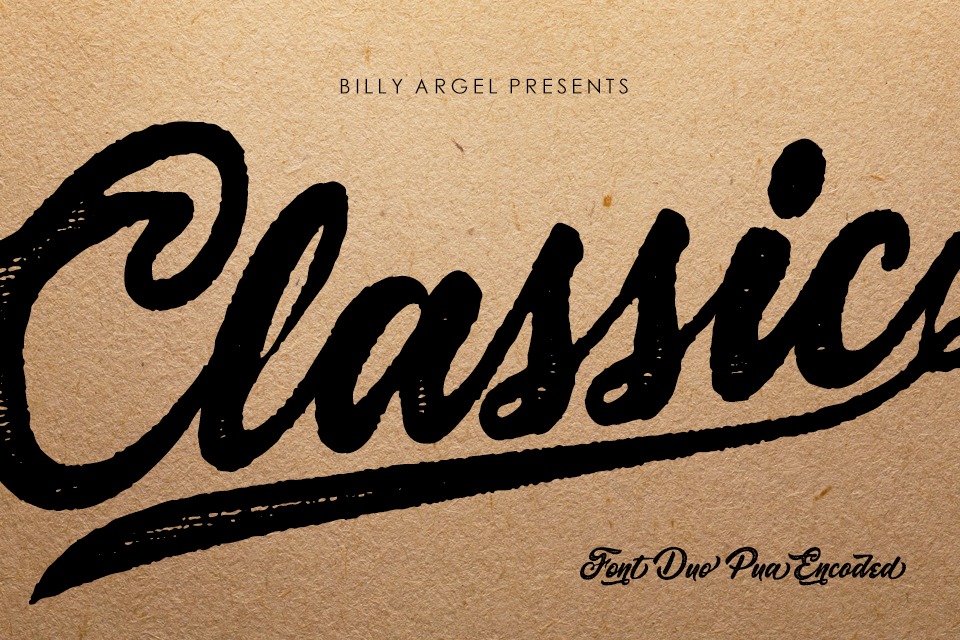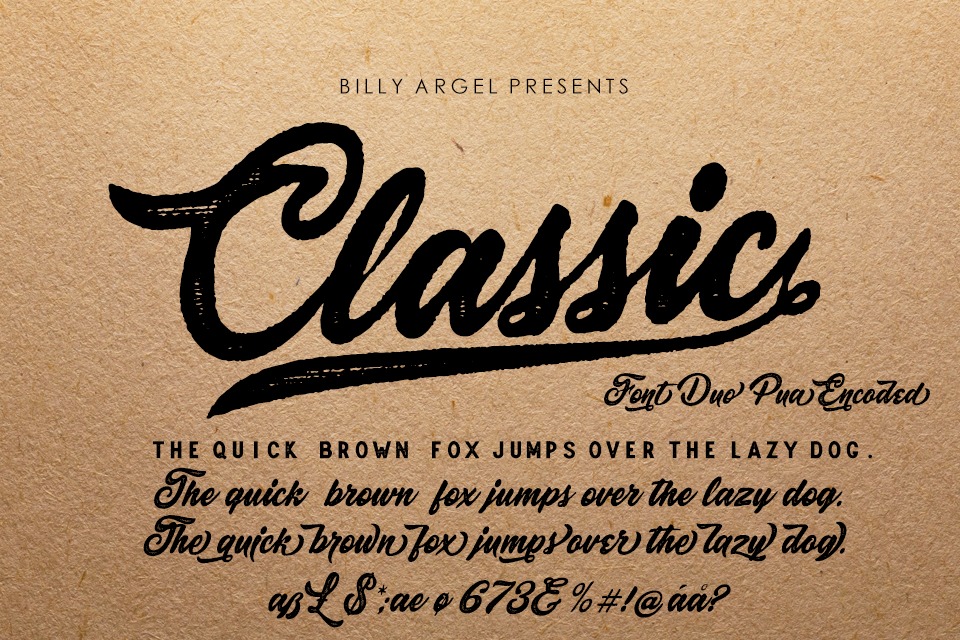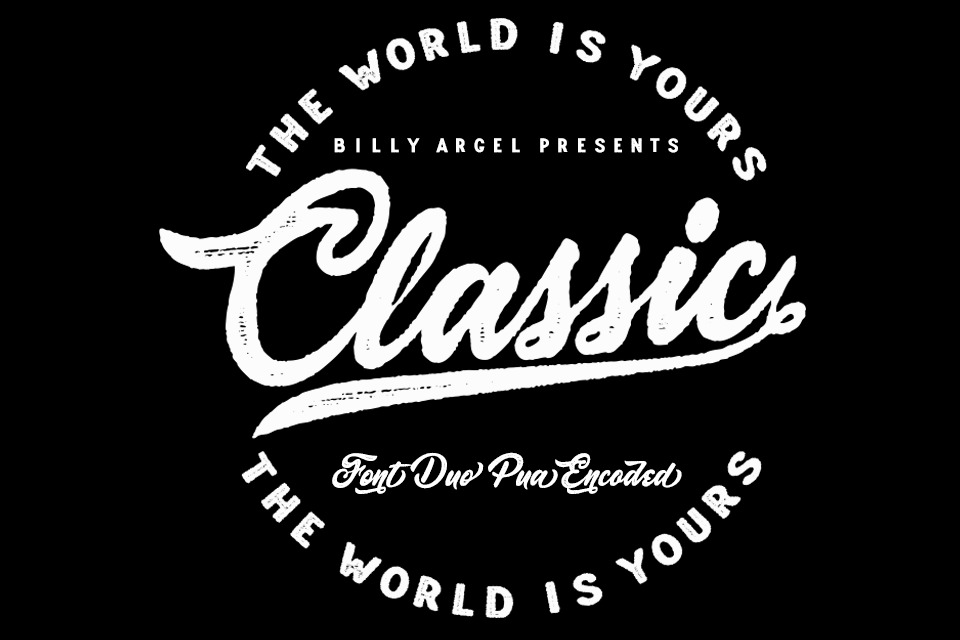
Classic Roots Script Font
It’s a handwritten font created by Billy Argel with a dry brush texture with rough details. This font has been designed to suit a variety of projects such as business branding, Instagram quotes, Christmas greeting, Poster, blog headers, Packaging, sports communities, film, photography, hobbies, and much more.